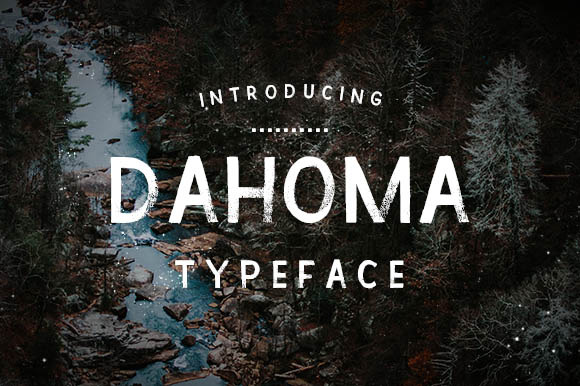
Dahoma typeface
Dahoma a block, sans-serif typeface which was named after a species of tree, is our latest addition in the Lettering Shop. This typeface was created from a No. 4 Flat brush, Guoche black ink and a textured paper. The dry brush texture was too mesmerising not to make this into a font, so i took the punch and made it so i can share it with everyone here!
- All capital letters